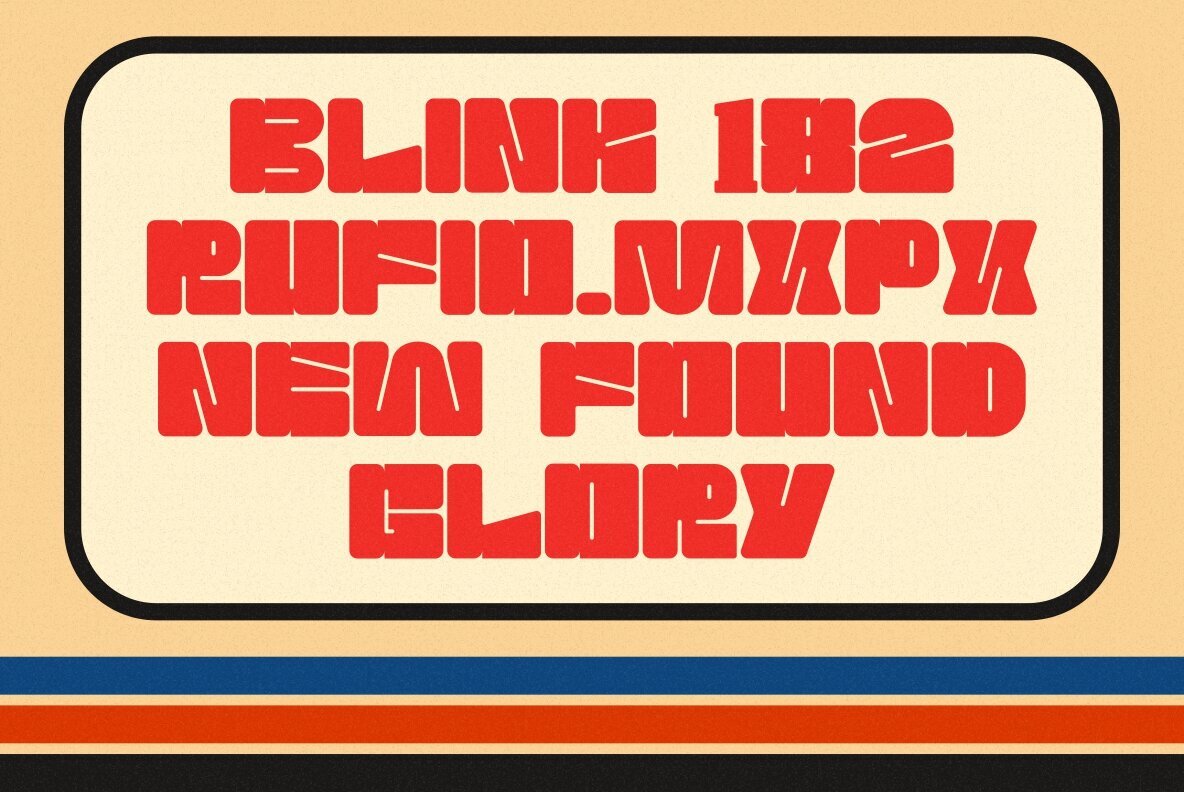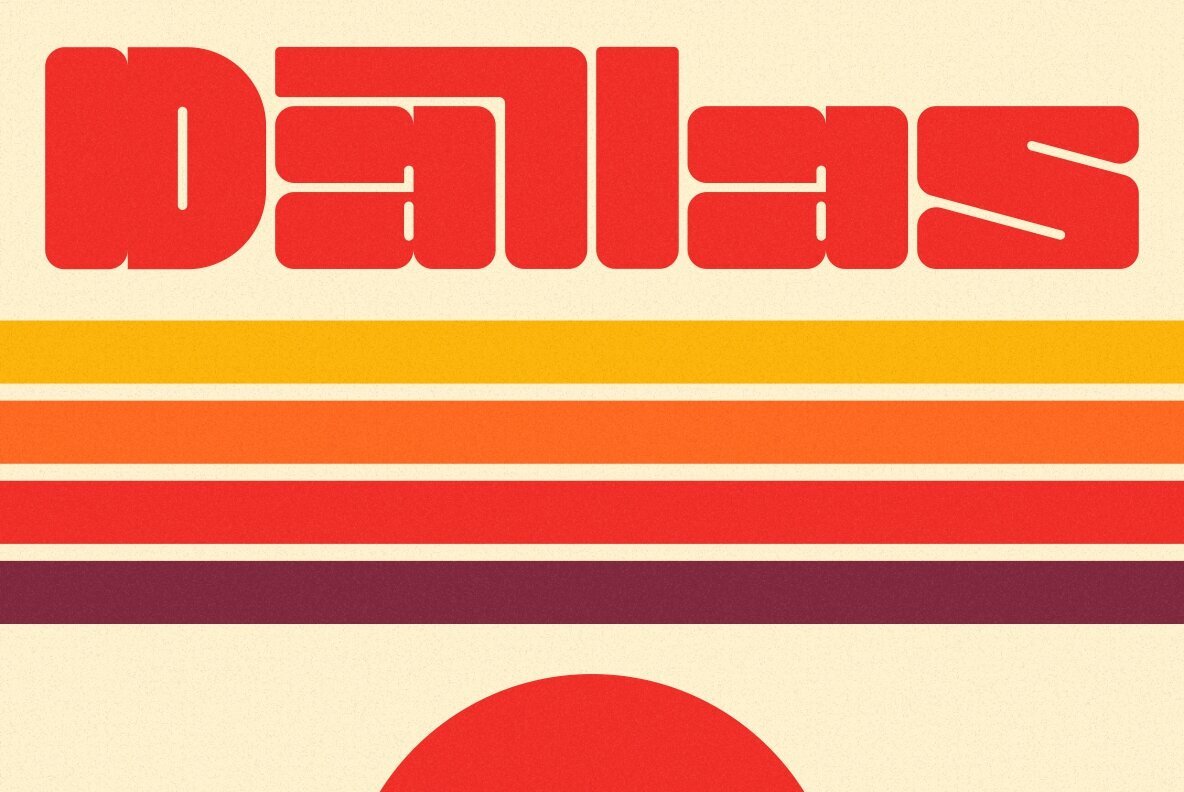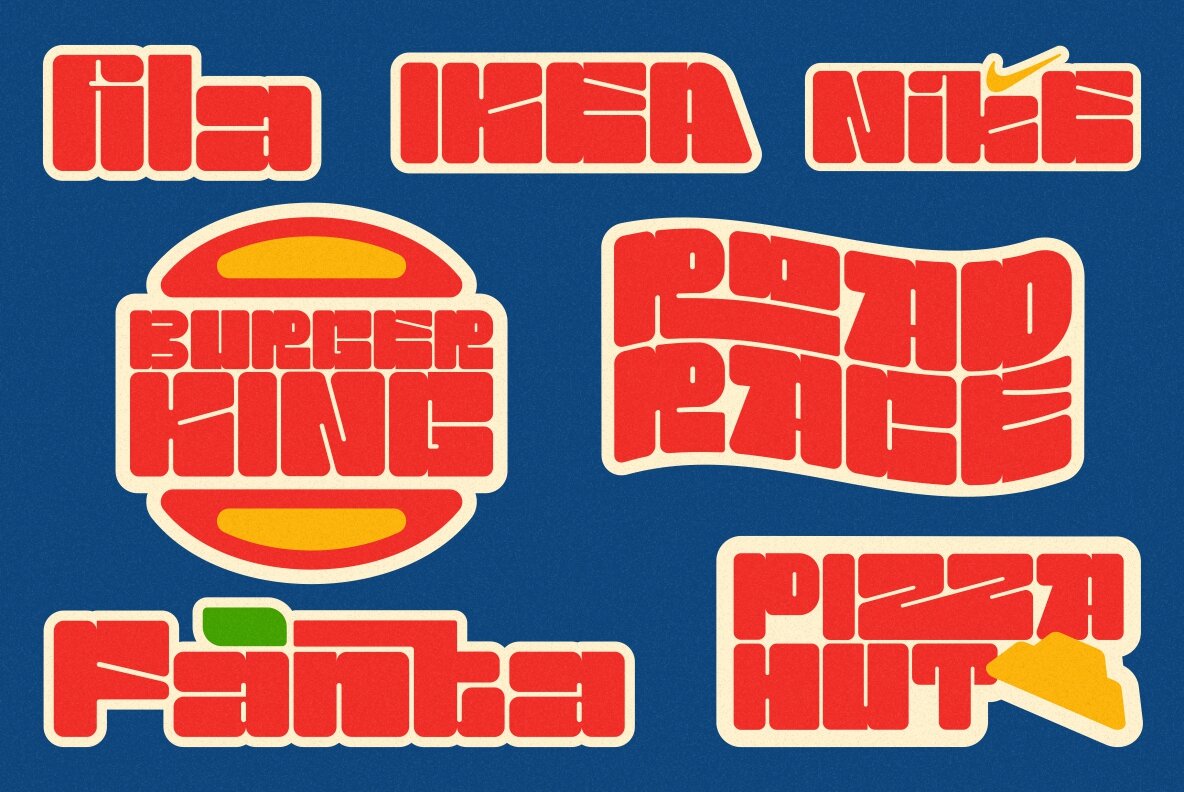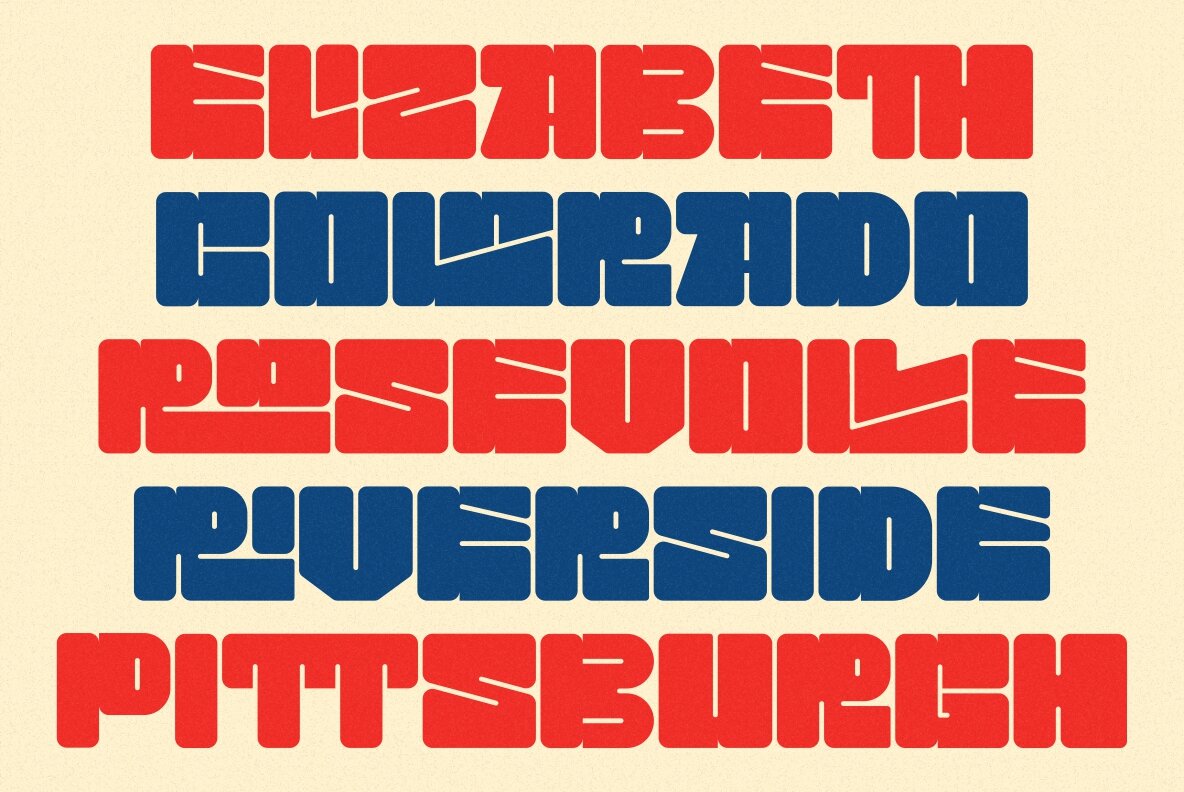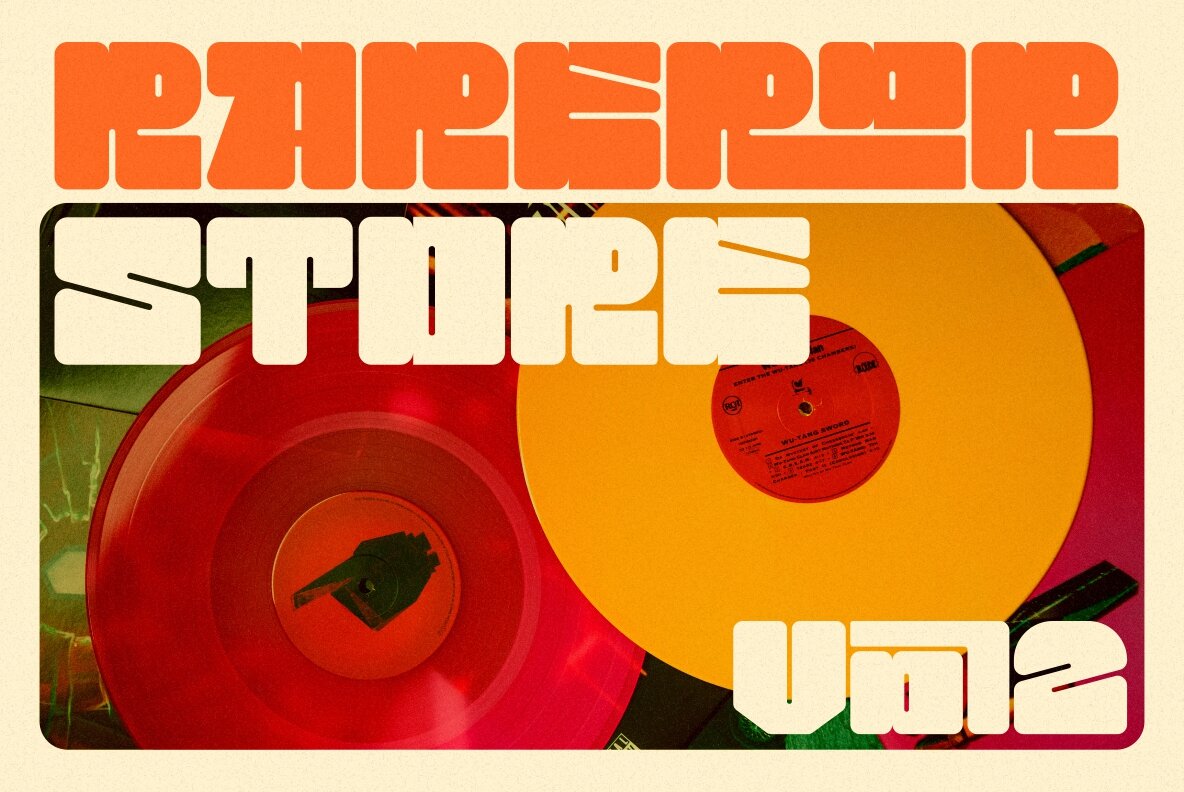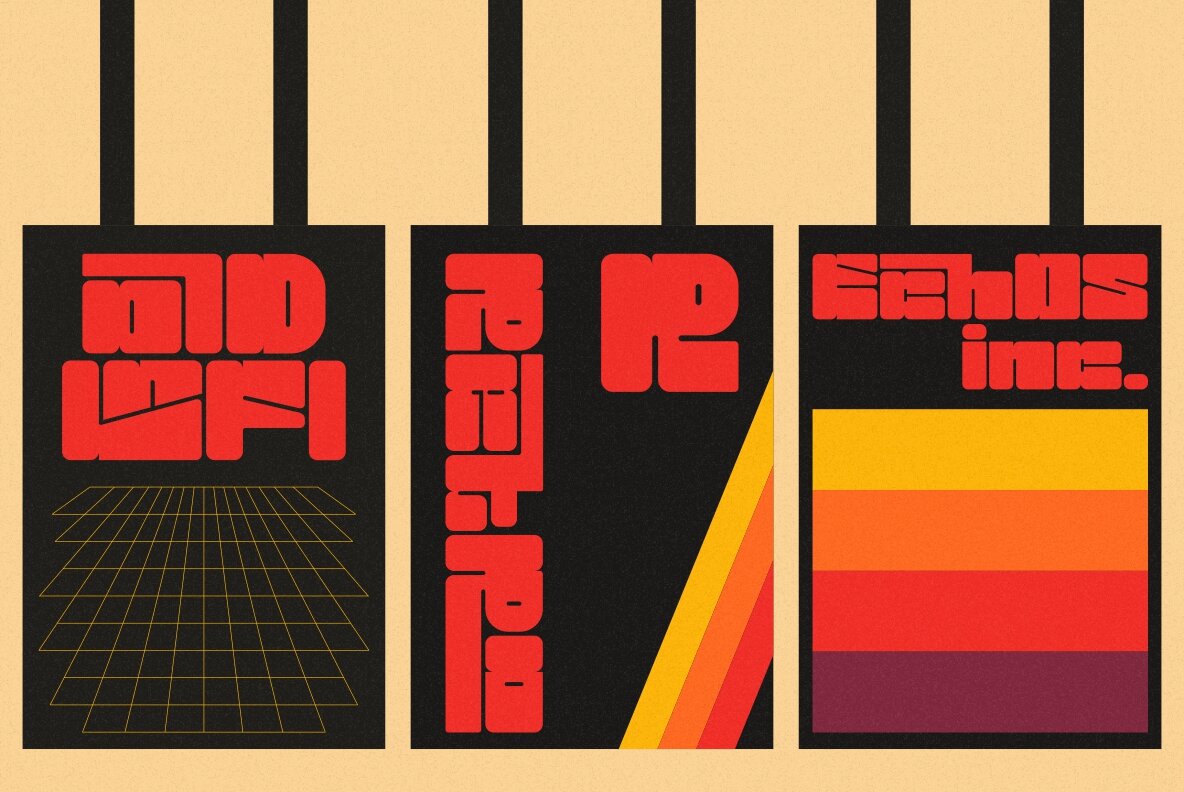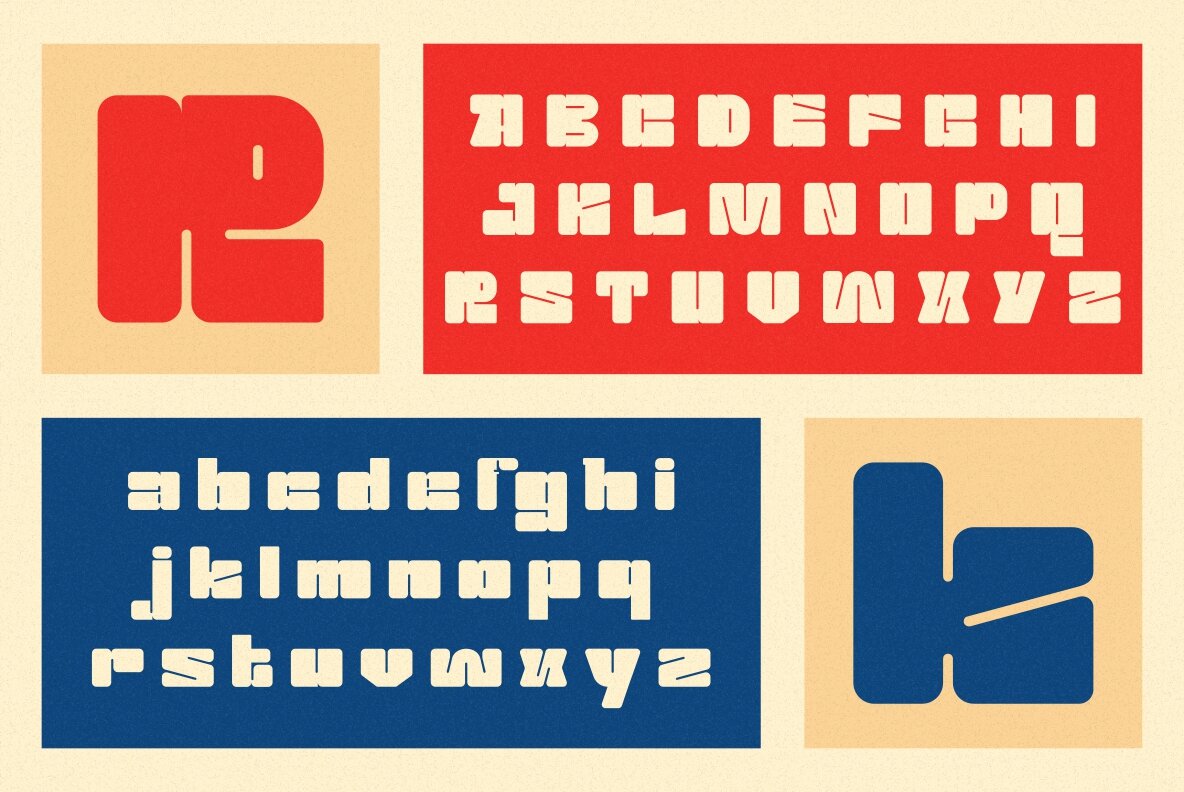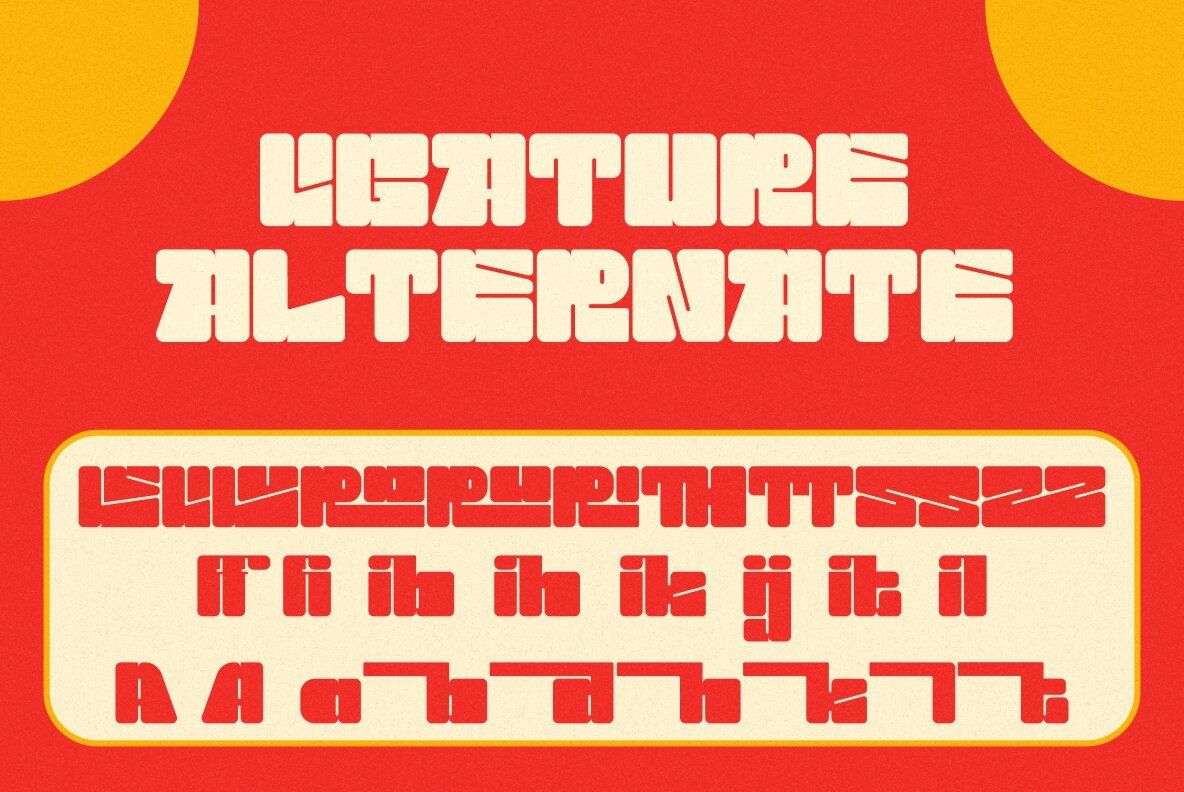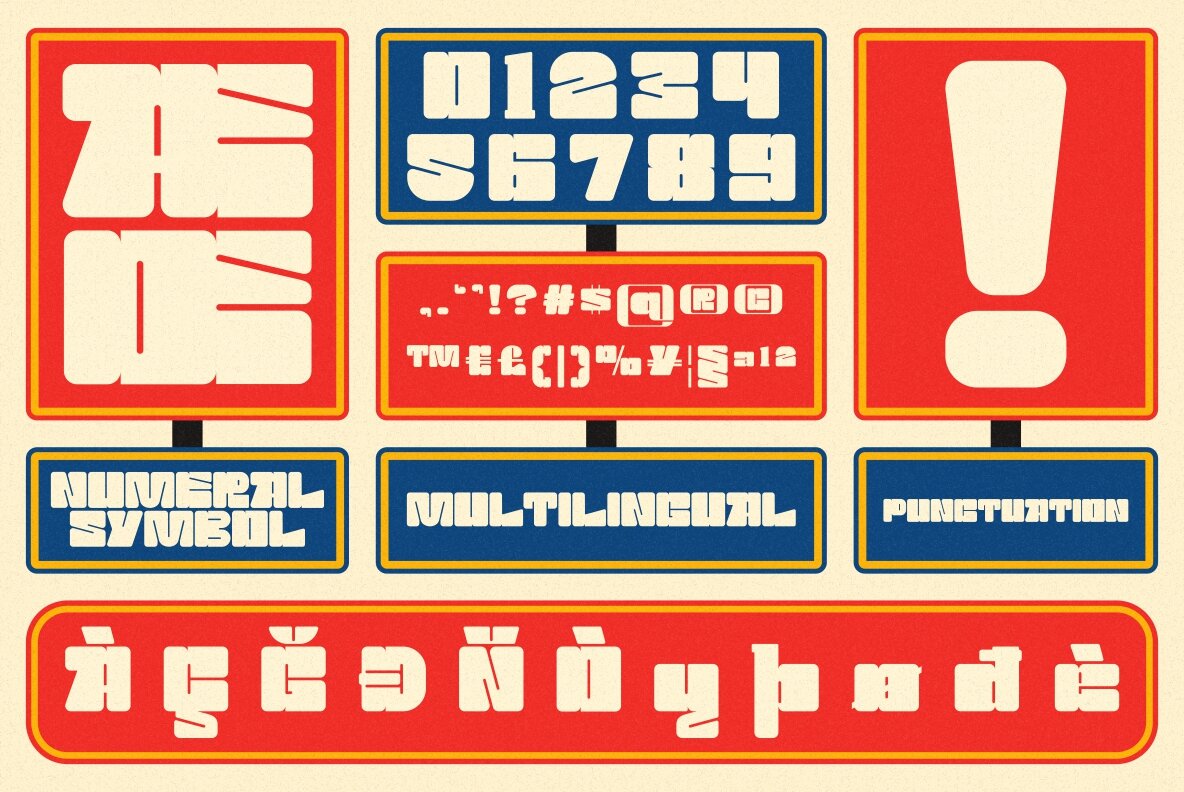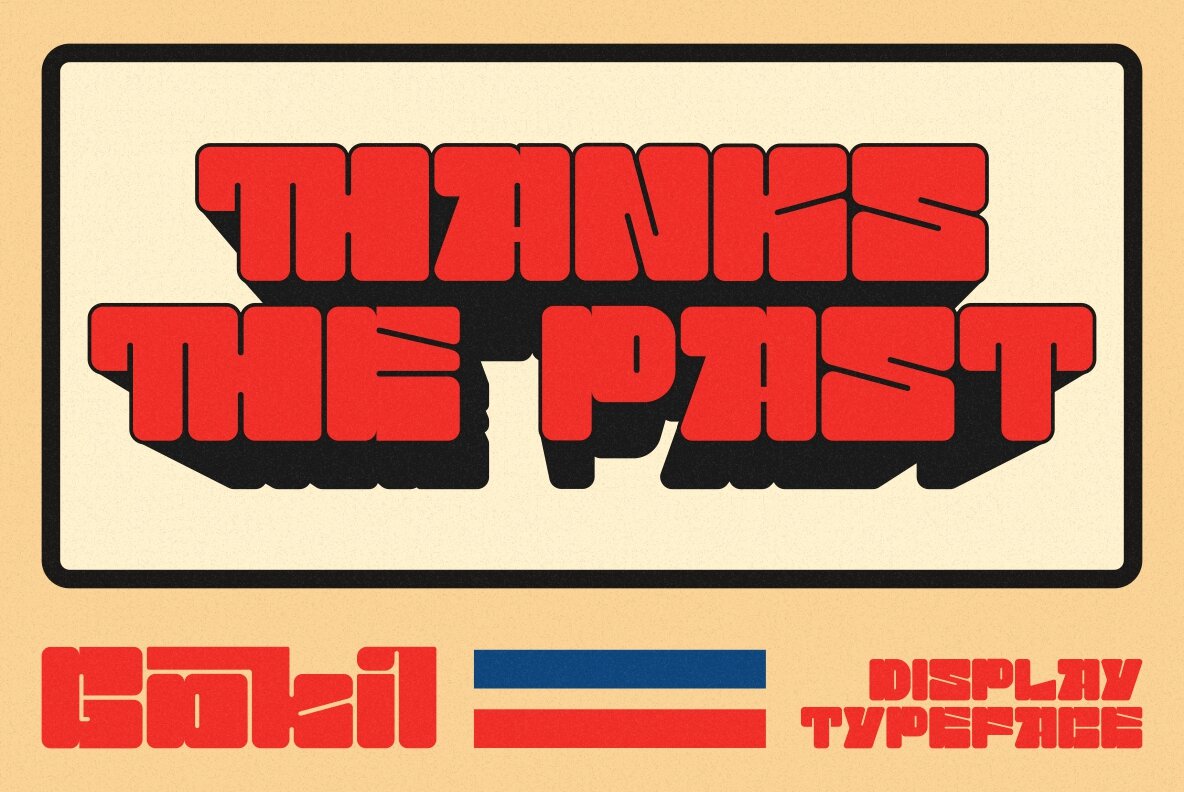
Gokil is an unique bold display font with rounded edges. You can use this font in retro, vintage, and hipster designs. This font is perfect for a variety of projects, such as branding, poster displays, logo designs, magazines, headlines, stickers, and more.This font also has alternate and ligature features